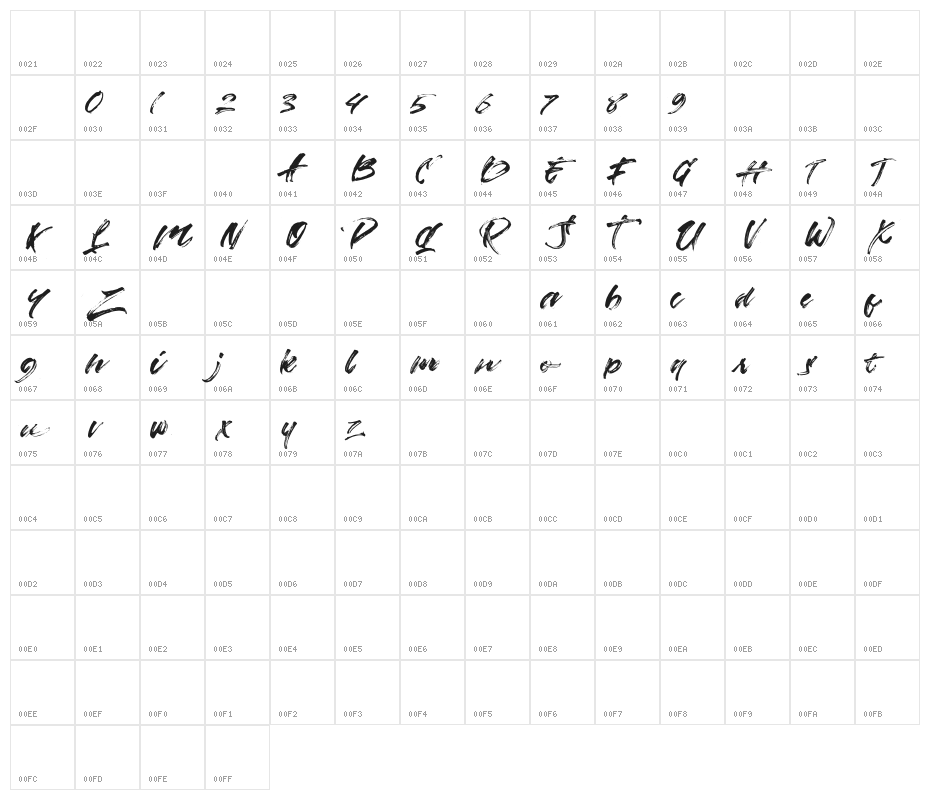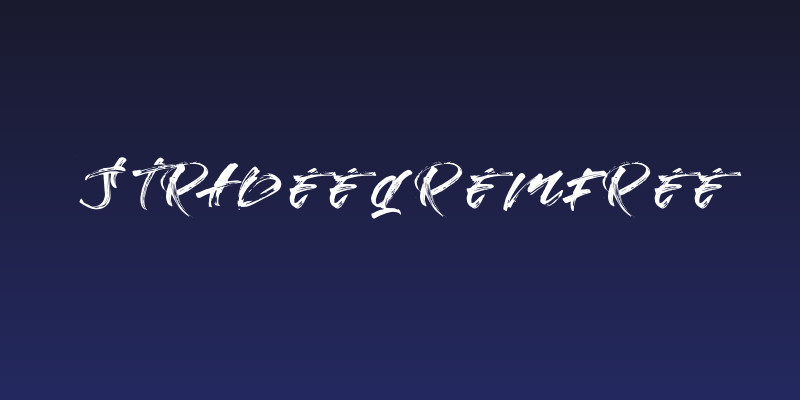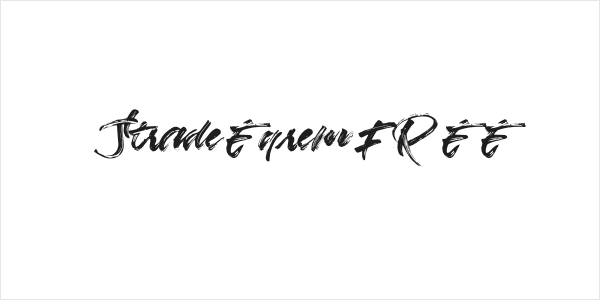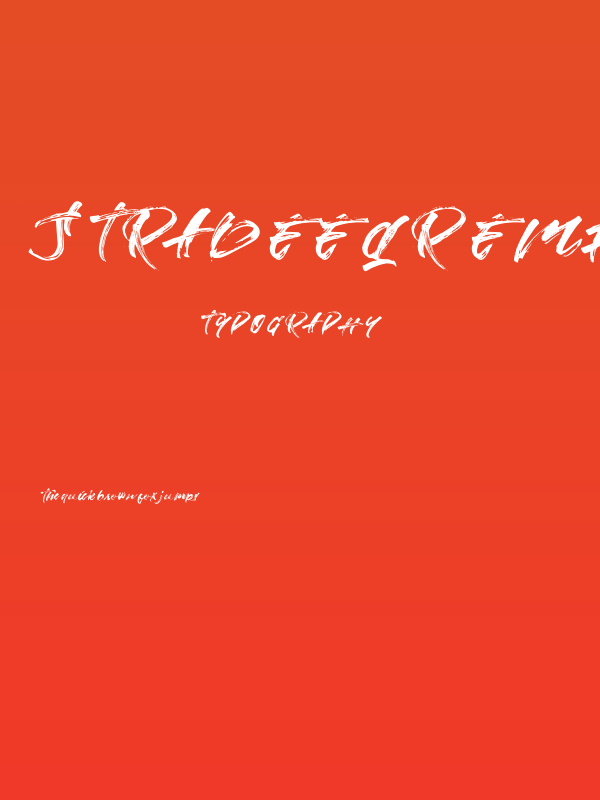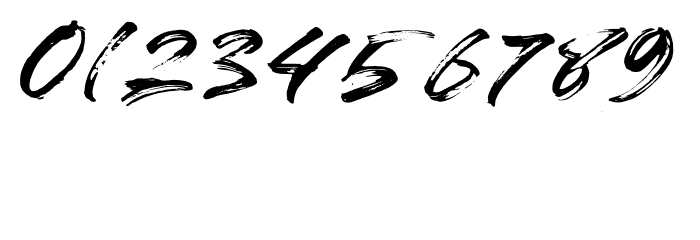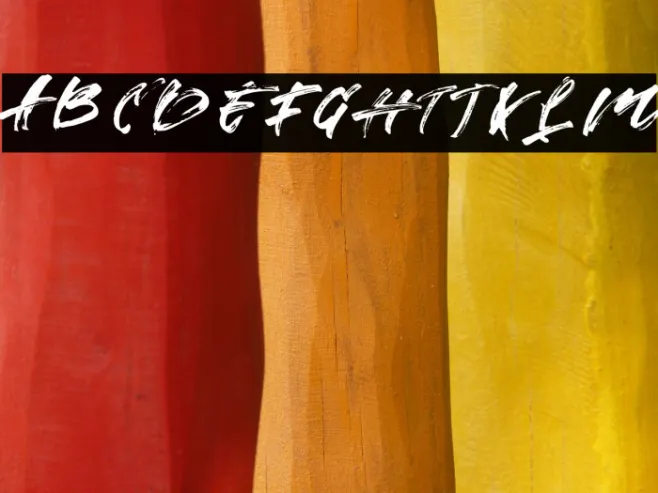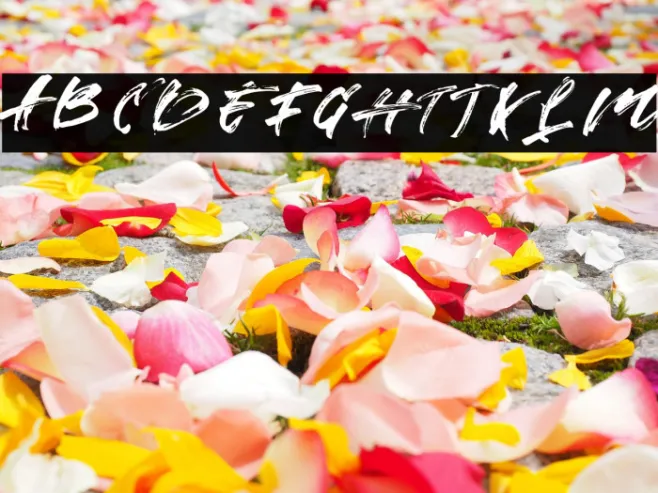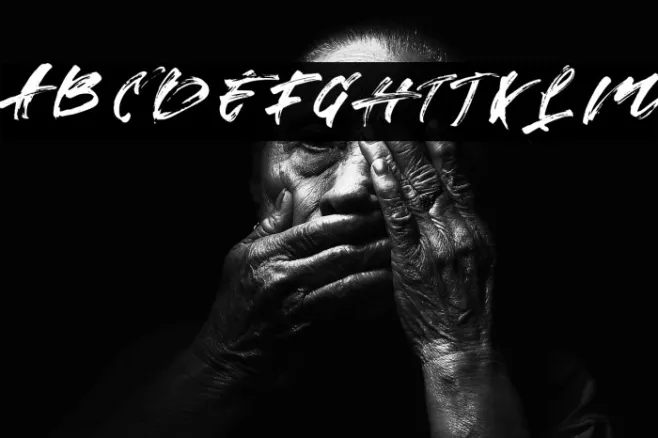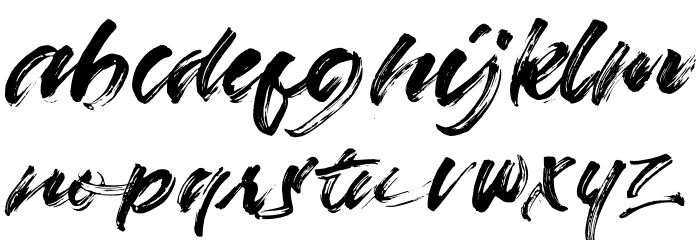
StradeEqremFREE Font
StradeEqremFREE Description
This font exhibits a dynamic and expressive brush script style, characterized by its bold, sweeping strokes and a sense of fluidity. The letters are crafted with a hand-painted aesthetic, giving them an artistic and organic feel. Each character varies in width and angle, adding to the font's lively and spontaneous appearance. The uppercase letters maintain a consistent height, while the lowercase letters are slightly more varied, enhancing the casual and informal vibe. The numbers and special characters are equally expressive, maintaining the same brush-like texture and energy.